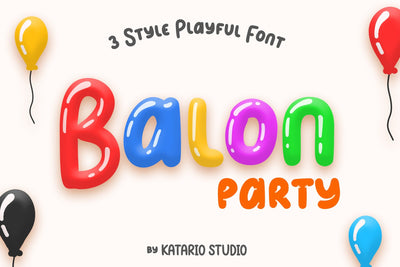
Balon Party | Layered 3 Style Display Font
Introducing Balon Party - a layered 3 Style Display Font. This type of font perfectly made to be applied especially in invitation, t-shirt, tumbler, labels, stationery, birthday card, school book, crafting items, logotype, children book, or any type of advertising purpose. With this typeface you can also combine it with other fonts you have to make your design more beautiful.